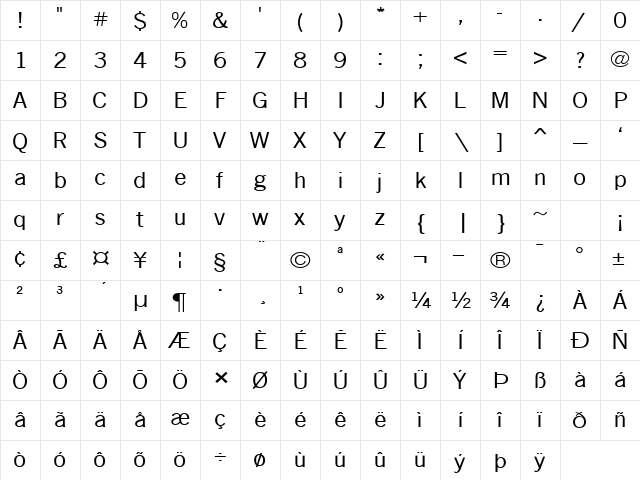
Matterhorn-Extended Normal Free Font
Matterhorn-Extended Normal
Complete Matterhorn-Extended Normal glyph index. Displaying only characters natively supported by Matterhorn-Extended Normal font.
Design Context for Matterhorn-Extended
Matterhorn-Extended is a composed and adaptable typeface that performs quietly and consistently across a wide range of design contexts.